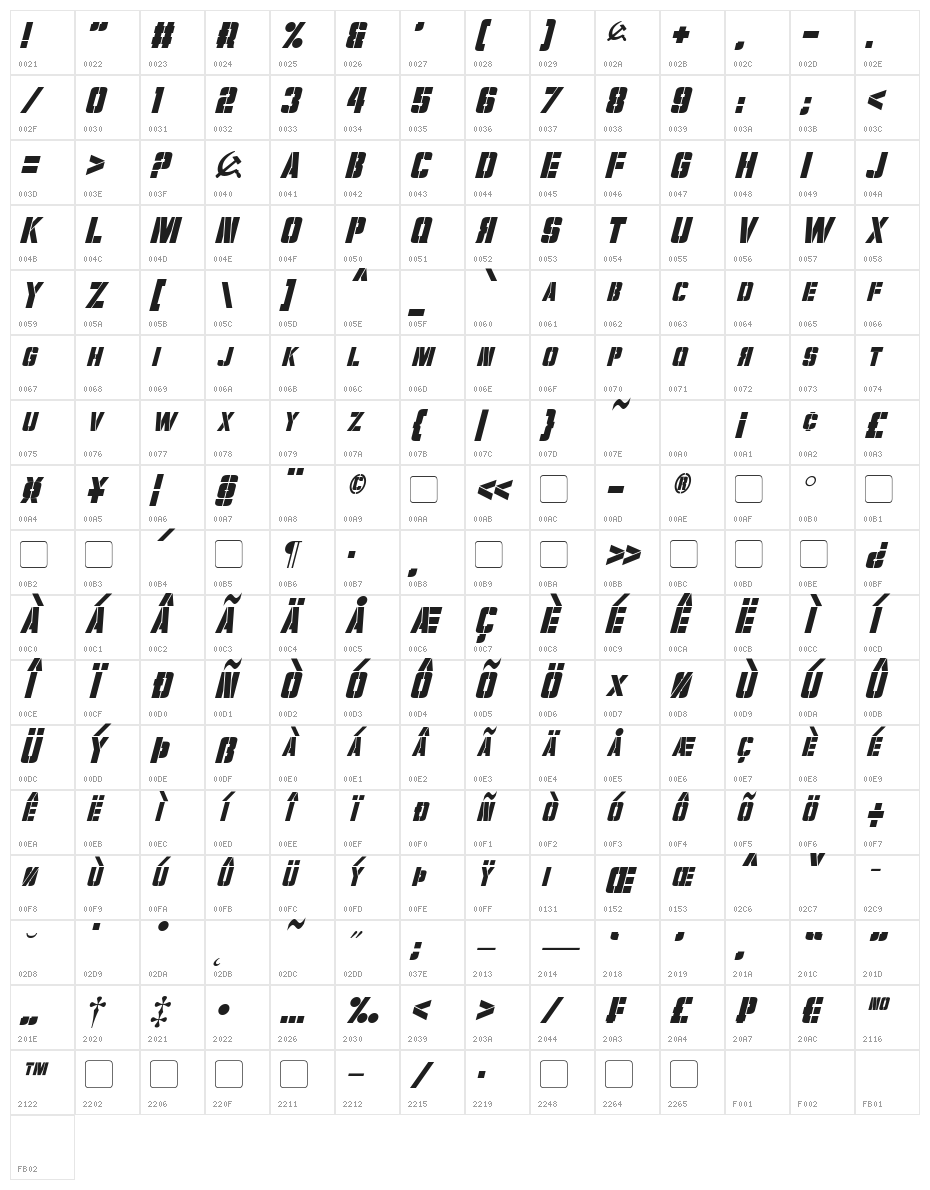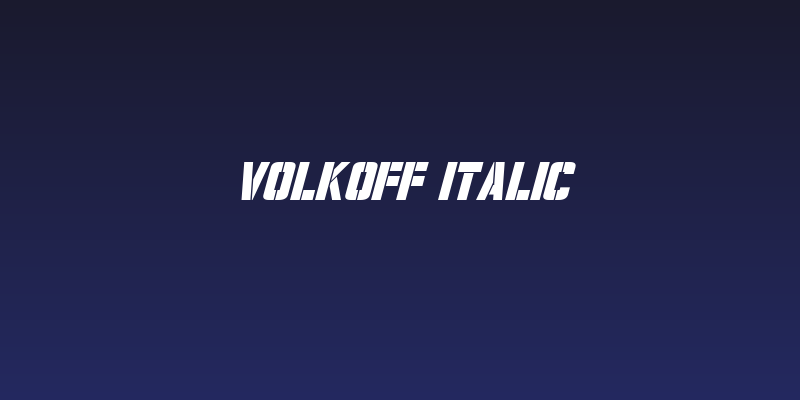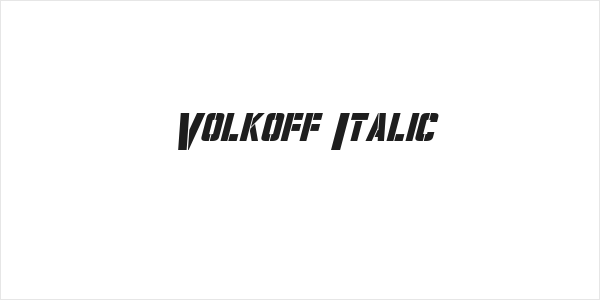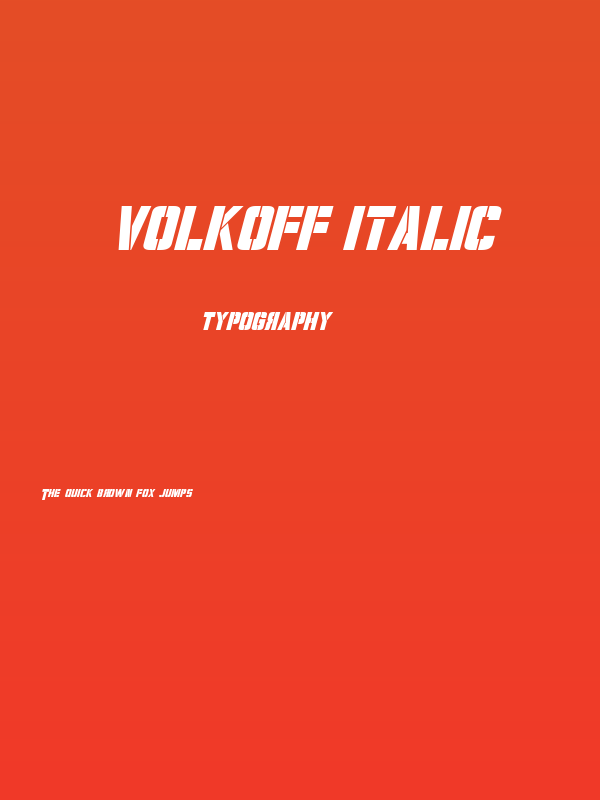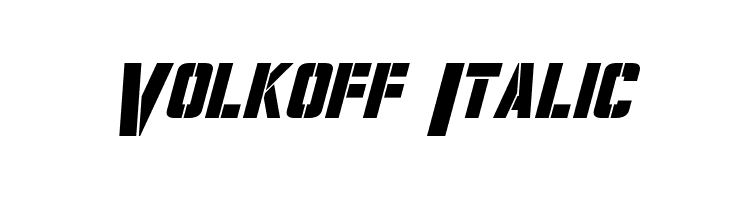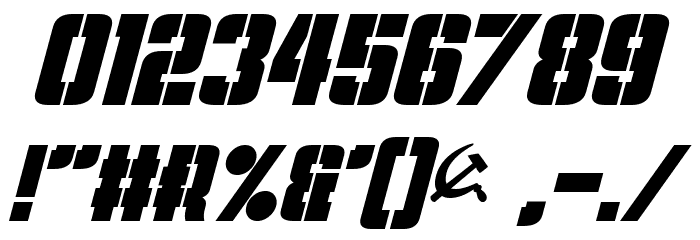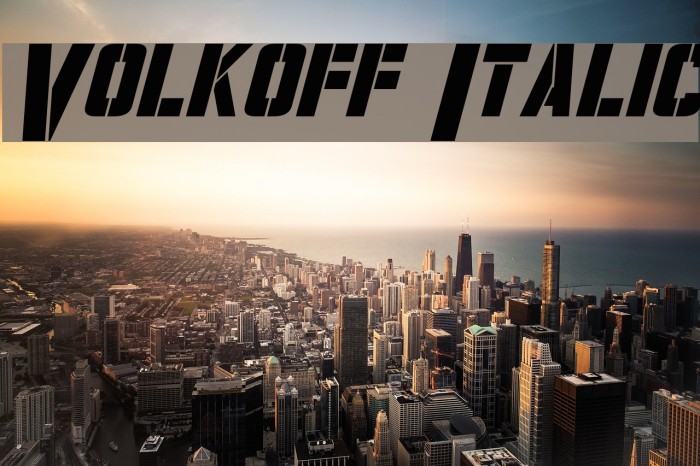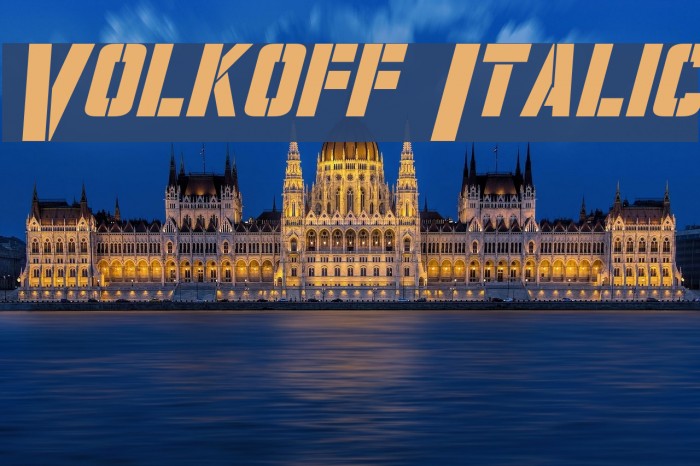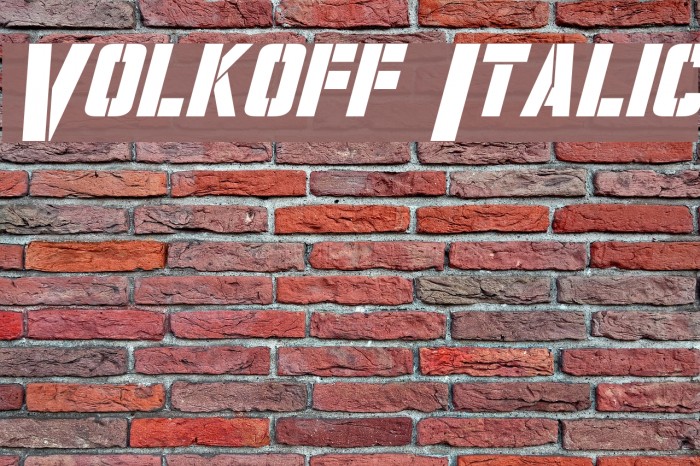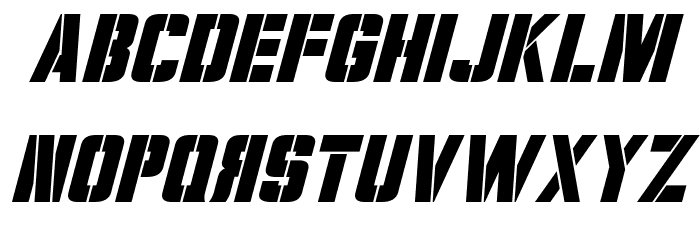
Volkoff Italic Font
Volkoff Italic Description
This font features a bold, italicized style with a strong, dynamic presence. The characters are designed with sharp angles and a forward-leaning stance, giving a sense of motion and urgency. The strokes are thick and consistent, creating a uniform appearance across all characters. The uppercase and lowercase letters maintain a cohesive look, while the numbers and special characters are crafted to match the overall aesthetic. This font is ideal for making a bold statement and capturing attention.